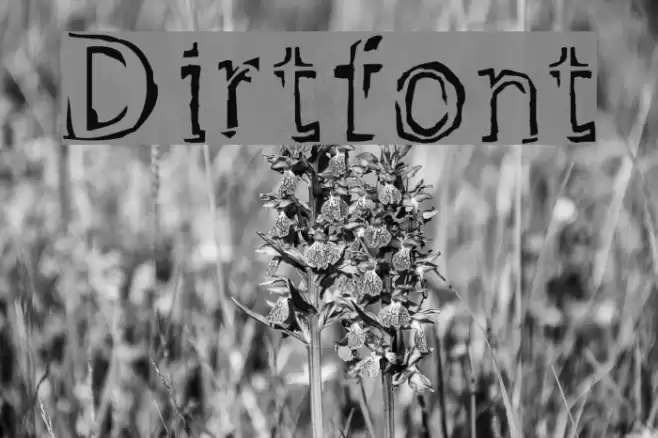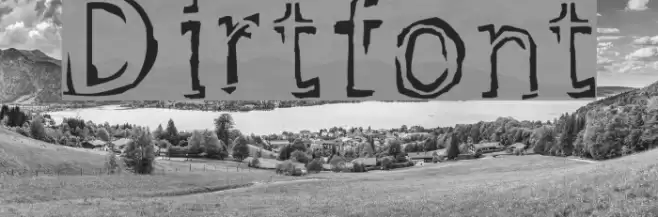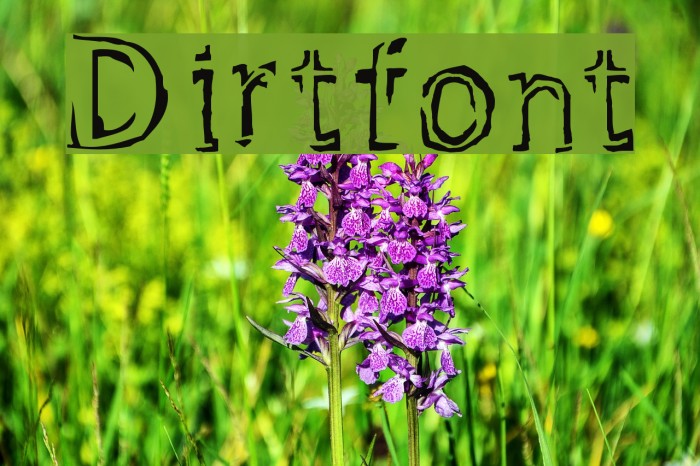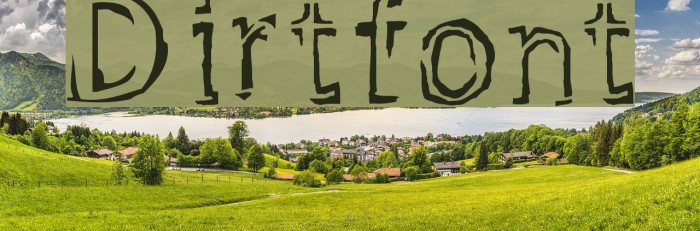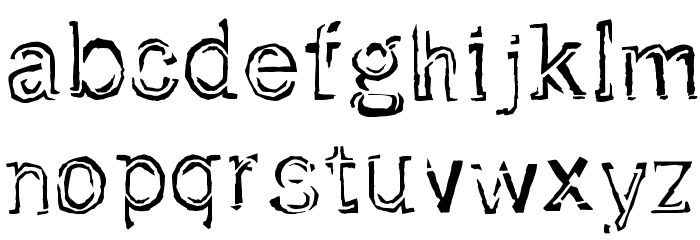
Dirtfont Font
Dirtfont Description
This font features a distressed, grunge style that gives the appearance of being weathered or eroded. The characters have an uneven texture, with parts of the letters appearing chipped or worn away, creating a rugged and raw aesthetic. This style is reminiscent of urban decay or vintage signage, making it ideal for projects that require an edgy or alternative look. The uppercase and lowercase letters maintain a consistent design, with each character exhibiting unique imperfections that add to the overall charm. The numerals and special characters follow the same distressed theme, ensuring a cohesive appearance across all text elements.
A distressed, grunge-style font with a rugged, weathered appearance from Distorted Eroded fonts.
- Overall Style: Grunge, Vintage